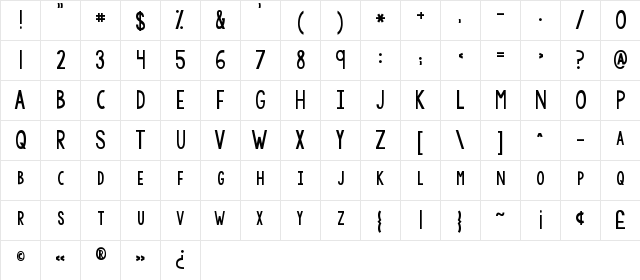
KG Modern Monogram Plain Regular
Design Context for KG Modern Monogram Plain Typeface
KG Modern Monogram Plain brings the precise, column-aligned rhythm of monospaced typography to designs that value technical clarity and systematic order.
A natural fit for code editors, technical documentation, developer-focused branding, and terminal-inspired UI.
Pro Tip: Pair KG Modern Monogram Plain with a proportional sans for UI contexts where code-style labels and regular body copy need to coexist.